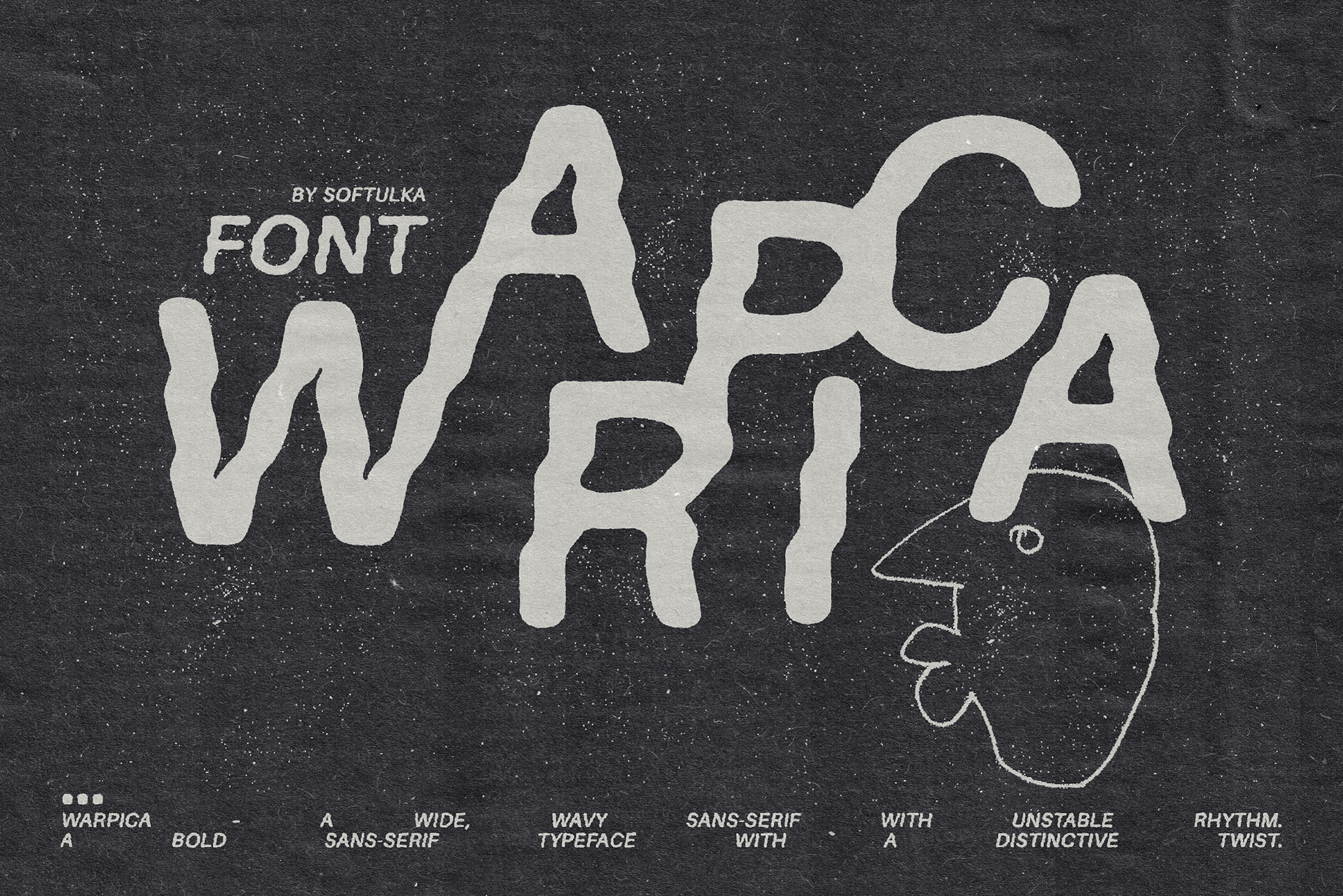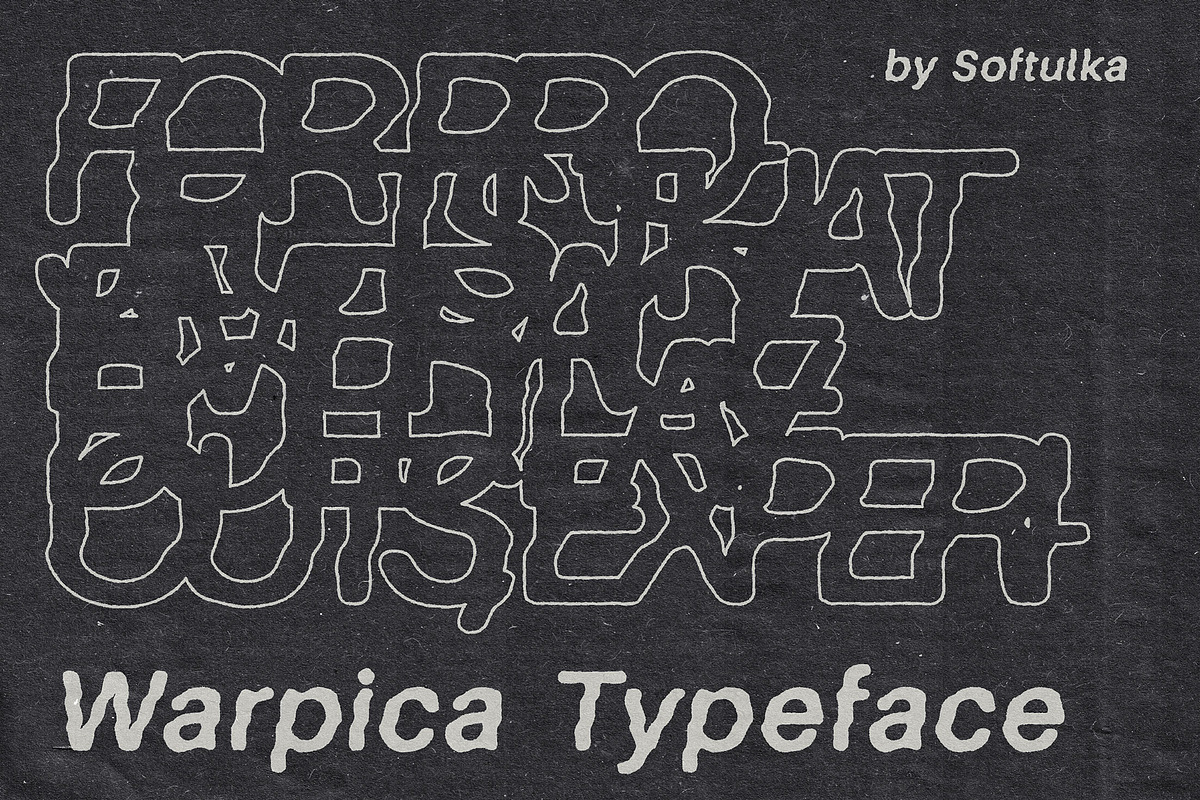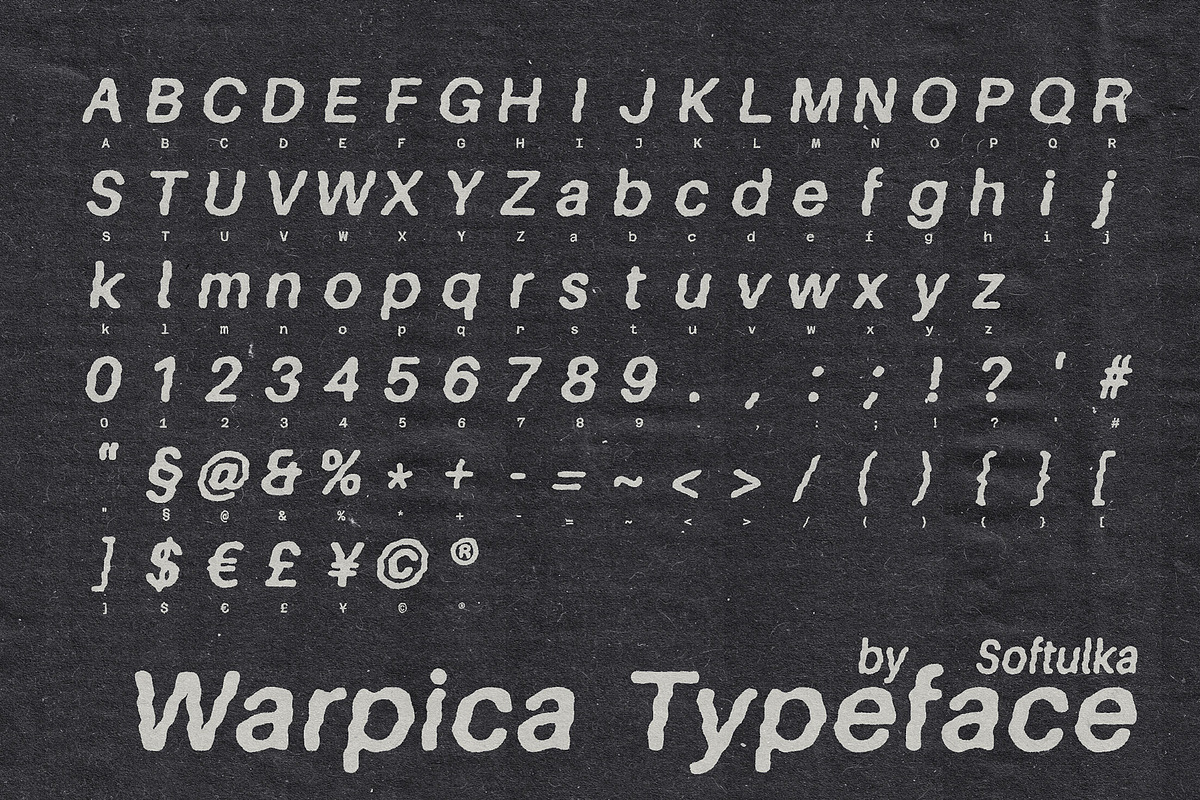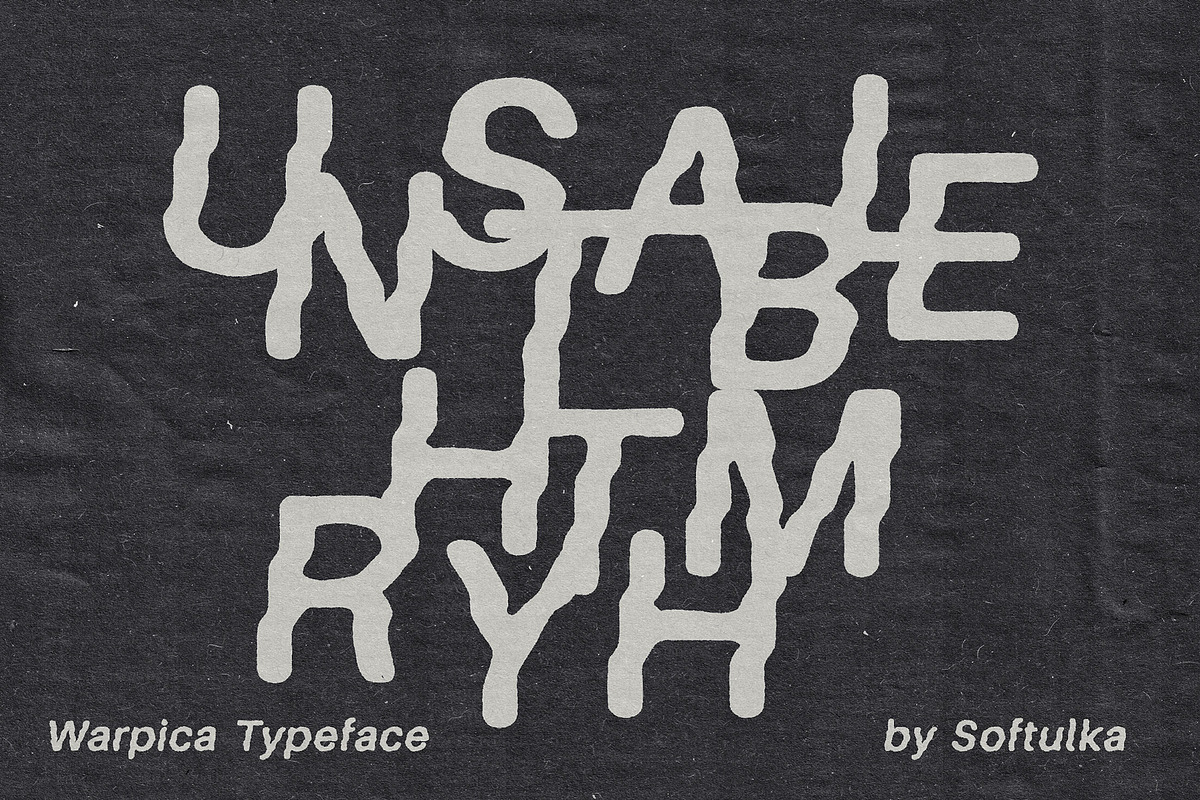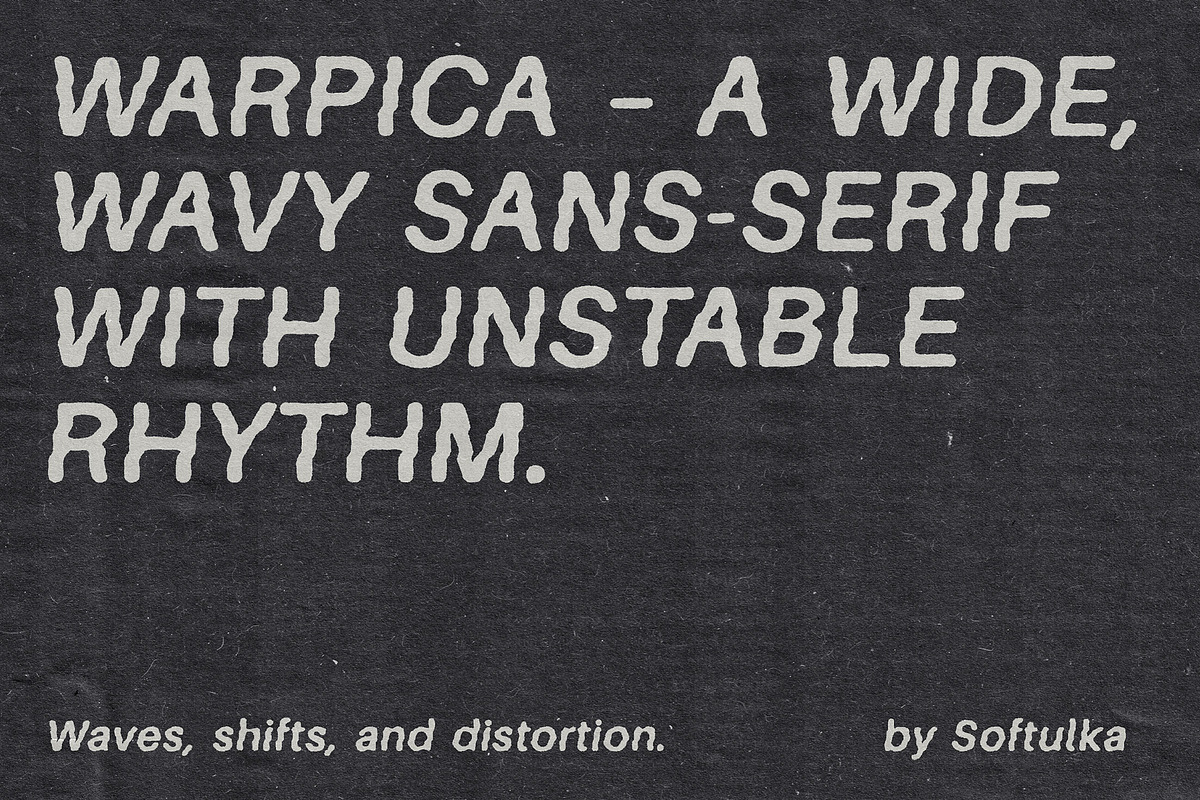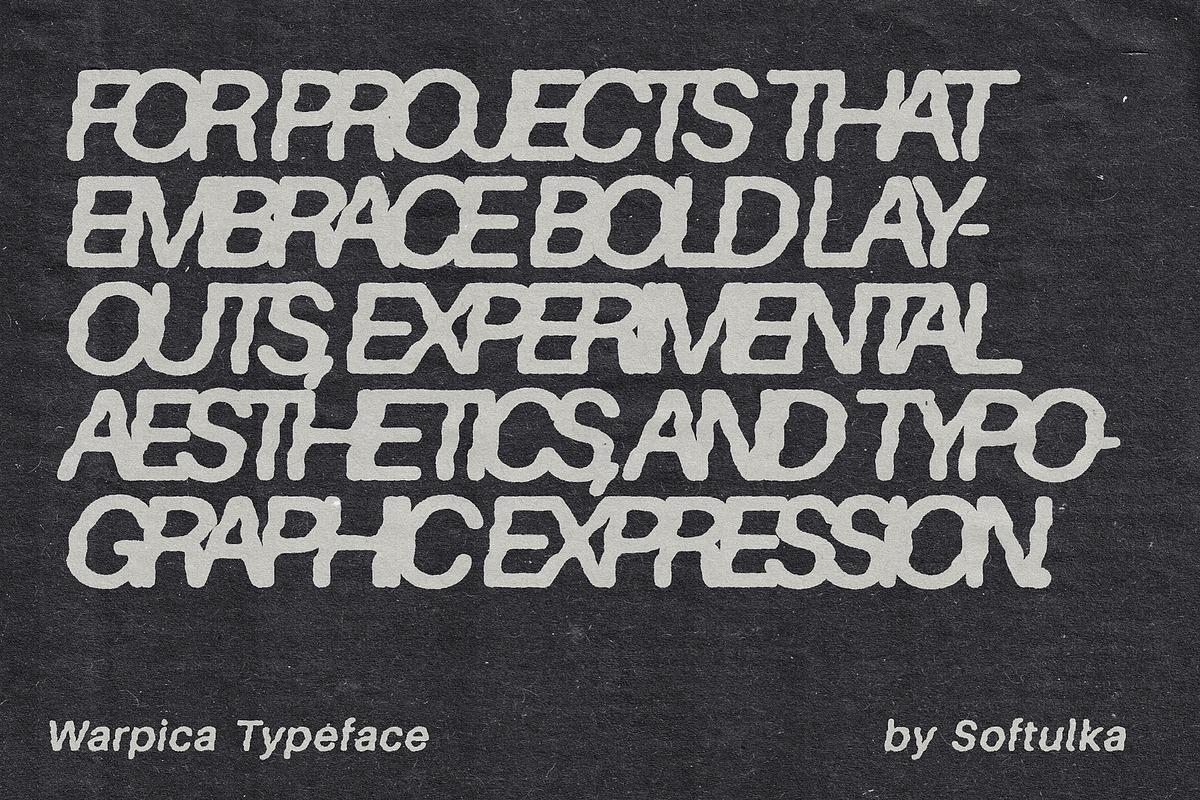
Warpica Typeface
Warpica - A Wide, Wavy Sans-Serif with Unstable Rhythm. A bold sans-serif typeface with a distinctive twist literally. Each letterform features subtle waves, optical shifts, and rhythmic distortion that give the font a lively, offbeat personality. With wide proportions and a soft, undulating structure, Warpica blends digital precision with playful imperfection. Designed for those who want to break away from rigid grid systems, this typeface is ideal for projects that embrace bold layouts, experimental aesthetics, and typographic expression. Perfect for editorial design, posters, album covers, branding, and anything where character counts. Warpica thrives in both headline and display use.